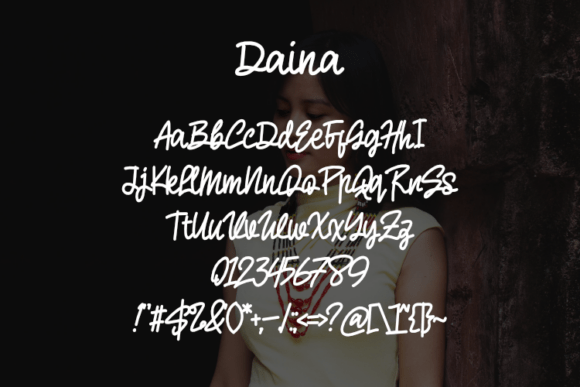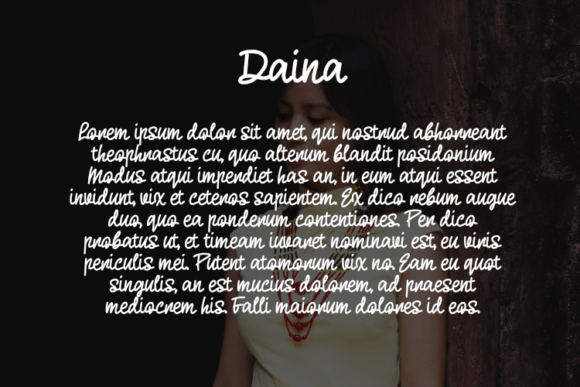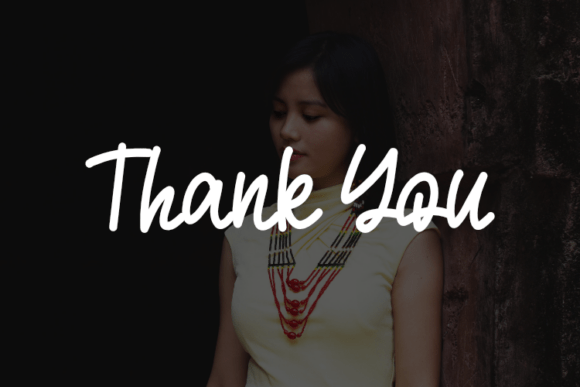
Unlock Endless Design Possibilities with Daina Font
Immerse yourself in the versatility and stylistic flair of “Daina,” an artistic font meticulously crafted for textile design projects like clothing and t-shirts. With its unparalleled adaptability, Daina promises seamless integration with any design software and is compatible with all platforms, thanks to its hassle-free otf file. Transcend mediocrity and choose Daina for an extraordinary design experience that elevates your projects and ensures they truly stand out.
The Art of Daina: A Font Like No Other
Daina is not just a font; it’s a creative tool designed to bring your textile design projects to life. Its artistic style is versatile enough to suit a wide range of applications, from casual t-shirts to high-end fashion lines. Whether you’re a professional designer or a crafty hobbyist, Daina offers the perfect blend of style and functionality.
Elevate Your Designs with Daina’s Unique Style
Daina’s artistic style is what sets it apart from more generic fonts. Its stylistic flair adds a touch of sophistication and creativity to any design, making your projects stand out in a crowded market. Whether you’re creating custom apparel for a client or designing a personal project, Daina helps you achieve that extra wow factor.
The font’s versatility means you can use it for a wide range of design applications, from bold and eye-catching headlines to more subtle and intricate text elements. Daina’s range allows you to experiment with different styles and effects, giving you the freedom to push the boundaries of your creativity.
Get the Most Out of Daina
To fully leverage the potential of Daina, consider the following tips:
- Experiment with Different Sizes and Colors: Daina’s style shines through in various sizes and colors, so don’t be afraid to experiment and find what works best for your project.
- Pair with Complementary Fonts: While Daina is stunning on its own, pairing it with complementary fonts can add depth and interest to your designs.
- Use in Combination with Graphics: Daina works beautifully with graphics and illustrations. Try combining text with custom graphics for a unique look.
Daina is more than just a font – it’s a design experience. Its blend of artistic style, versatility, and compatibility makes it an indispensable tool for anyone involved in textile design. Whether you’re creating custom clothing, accessories, or home decor items, Daina can help elevate your projects to new heights.
By choosing Daina, you’re not just selecting a font; you’re investing in a creative partnership that will inspire and empower your design work. So why settle for ordinary when you can create something extraordinary? Dive into the world of Daina and discover a new realm of design possibilities.